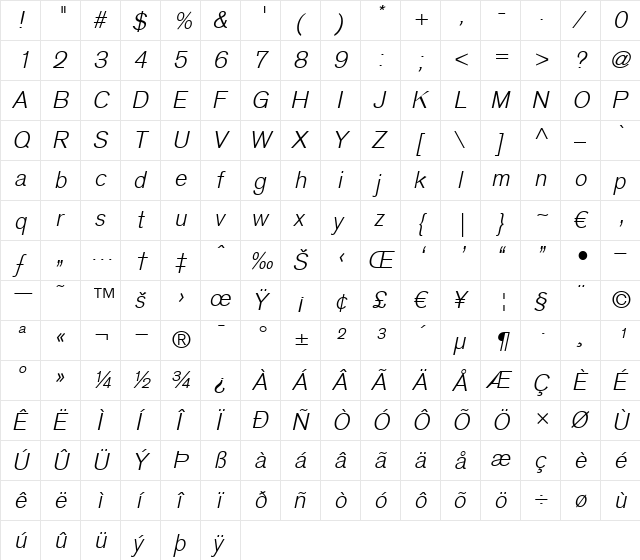
Akzidenz Grotesk Light Italic Font Preview
Design Context for Akzidenz Grotesk Light Typeface
Akzidenz Grotesk Light takes a clean, functional approach — its unadorned letterforms prioritise legibility and work reliably across screen and print environments. The dynamic lean of this cut emphasises speed and emphasis in any layout. The delicate stroke weight brings airiness and refinement to layouts.
A natural fit for high-end product packaging, luxury brand identities, and refined web typography.
Font Pairing: Pair Akzidenz Grotesk Light with a medium or bold serif for headlines — the weight contrast creates an elegant, high-end feel.
Pro Tip: Use Akzidenz Grotesk Light with generous tracking and line-height for the most luxurious effect — light sans-serifs reward spacious, considered layouts.